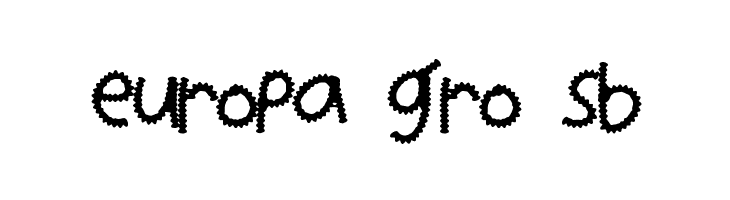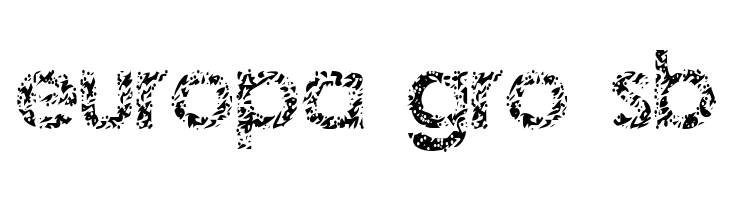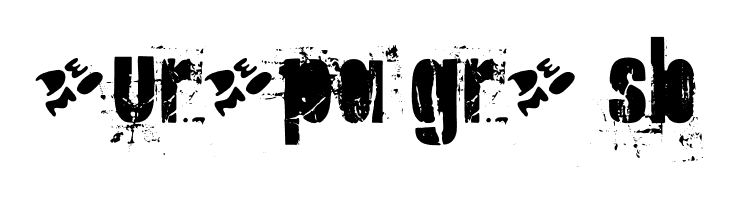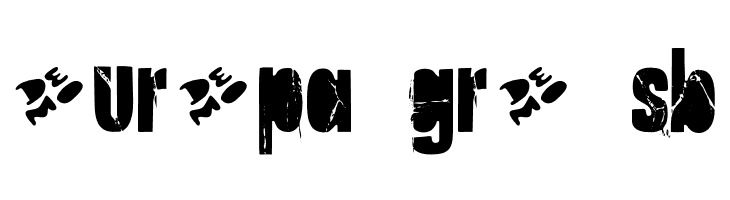
A playful, textured font with zipper-like edges and rounded, irregular characters.
A bold, textured font with a distressed, artistic style.
A distressed, grunge-style font with a bold, textured appearance.
A bold, distressed font with a grunge texture and blocky structure.
A bold, distressed font with a grungy, textured appearance.
A bold, geometric font with a futuristic and cohesive design.
A bold, handwritten font with a dynamic and casual style.
A rustic, organic font with a hand-drawn, tree-like appearance.